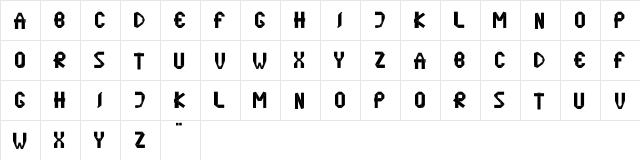
origame Regular
Design Context for origame Typeface
origame is a composed and adaptable typeface that performs quietly and consistently across a wide range of design contexts.